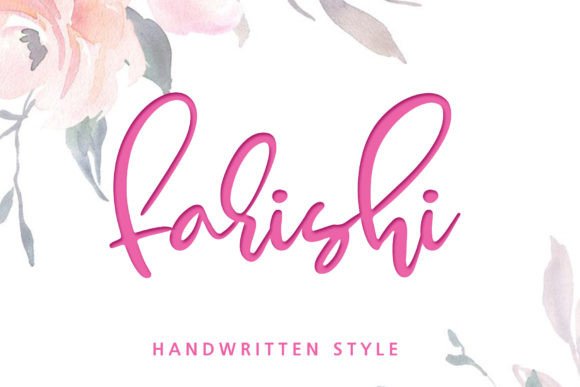
Introducing Farishi Font: Elevate Your Typography with Elegance
Are you a designer or crafter looking to add a touch of sophistication to your projects? Look no further than Farishi Font, a stunning script font that lets you create beautifully handcrafted typography. With Farishi, you can give your text a lift and make it truly unforgettable. In this article, we’ll dive into the world of Farishi Font and explore its features, benefits, and uses.
What is Farishi Font?
Farishi is a script font that boasts a unique, handcrafted aesthetic. Its elegant and fluid strokes make it perfect for creating visually appealing text that stands out from the crowd. Whether you’re designing a logo, invitation, card, product packaging, or header, Farishi Font is the ideal choice. Its versatility and flexibility make it a valuable addition to any designer’s or crafter’s toolkit.
Key Features of Farishi Font
- Handcrafted typography: Farishi Font is carefully crafted to give your text a personal, human touch.
- Elegant and fluid strokes: The font’s smooth, flowing lines create a sense of sophistication and refinement.
- Versatile and flexible: Farishi Font can be used for a wide range of projects, from logos and invitations to product packaging and headers.
- Easy to read and understand: Despite its elegant appearance, Farishi Font remains clear and legible, making it perfect for both digital and print applications.
Benefits of Using Farishi Font
So why choose Farishi Font for your next project? Here are just a few benefits you can expect:
- Add a touch of elegance: Farishi Font brings a level of sophistication and refinement to your text, making it perfect for high-end designs.
- Stand out from the crowd: With its unique, handcrafted aesthetic, Farishi Font helps your text stand out in a sea of generic fonts.
- Save time and effort: Farishi Font is easy to use and customize, saving you time and effort in the design process.
- Enhance your brand’s image: By using Farishi Font, you can create a consistent visual identity that reflects your brand’s values and personality.
Uses of Farishi Font
Farishi Font is incredibly versatile, making it suitable for a wide range of projects and applications. Here are some ideas to get you started:
- Logos and branding: Use Farishi Font to create a unique and memorable logo that reflects your brand’s personality.
- Invitations and cards: Add a touch of elegance to your invitations and cards with Farishi Font’s beautiful, handcrafted typography.
- Product packaging: Make your product packaging stand out with Farishi Font’s sophisticated and refined aesthetic.
- Headers and titles: Use Farishi Font to create eye-catching headers and titles that grab attention and draw the reader in.
Tips for Using Farishi Font
To get the most out of Farishi Font, here are a few tips to keep in mind:
- Experiment with different sizes and colors: Farishi Font looks great in a variety of sizes and colors, so don’t be afraid to experiment and find the perfect combination for your project.
- Pair with complementary fonts: Farishi Font pairs well with a range of fonts, so try combining it with complementary fonts to create a unique and visually appealing design.
- Use it sparingly: While Farishi Font is beautiful, it’s best used sparingly to avoid overwhelming the reader. Use it for headings, titles, and key text, and pair it with a simpler font for body text.
| Font Name | Farishi Font |
| Author | Nest Studio |
In conclusion, Farishi Font is a stunning script font that offers a unique and elegant way to elevate your typography. With its handcrafted aesthetic, versatile and flexible design, and ease of use, Farishi Font is perfect for designers and crafters looking to add a touch of sophistication to their projects. Whether you’re creating logos, invitations, product packaging, or headers, Farishi Font is the ideal choice. So why wait? Download Farishi Font today and take your typography to the next level!